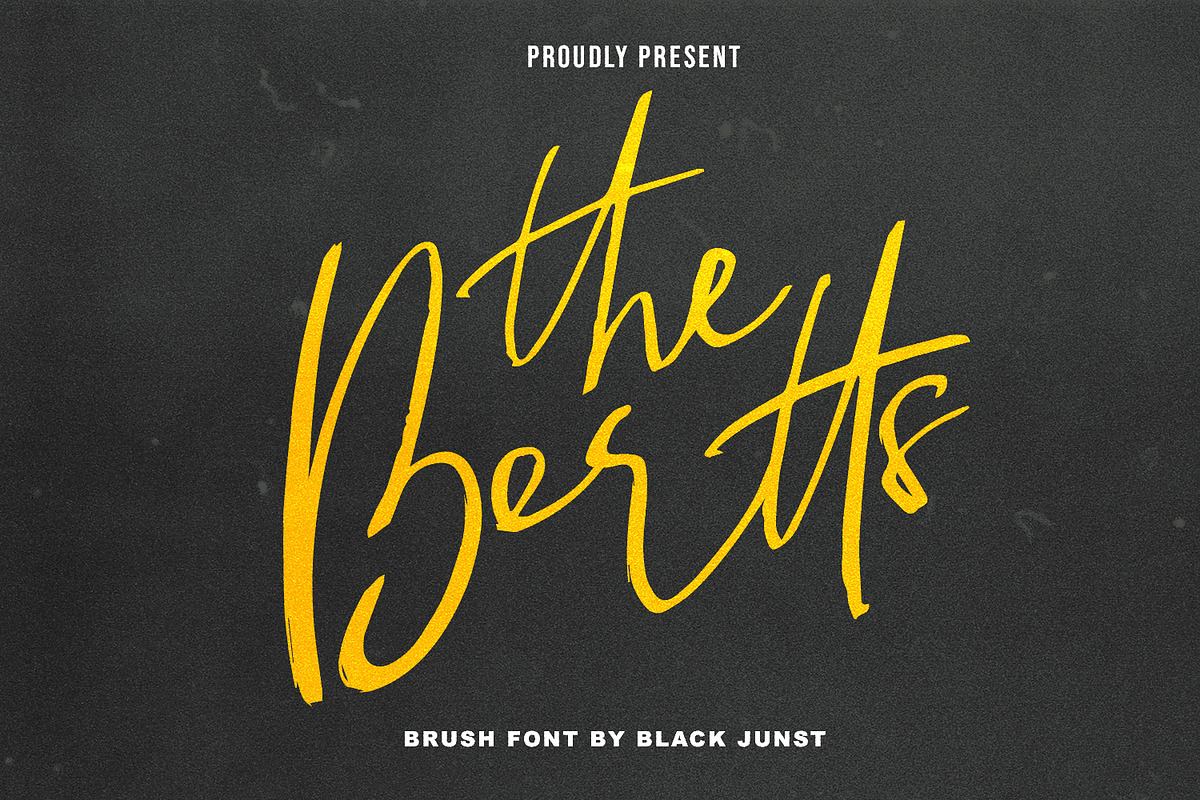
The Bertts - Signature Brush Font Free Download
The Bertts - Signature Brush Font Free Download is a bold and stylish handwritten typeface that mimics the look of a fast, confident signature. With its brush-style strokes and expressive personality, this font is perfect for personal branding, logos, social media posts, fashion labels, business cards, and product packaging that needs a strong, personal touch.
The Bertts combines elegance with edge, offering both smooth flow and striking impact. It includes ligatures and stylistic alternates to help you achieve a natural, authentic handwritten look in every design.